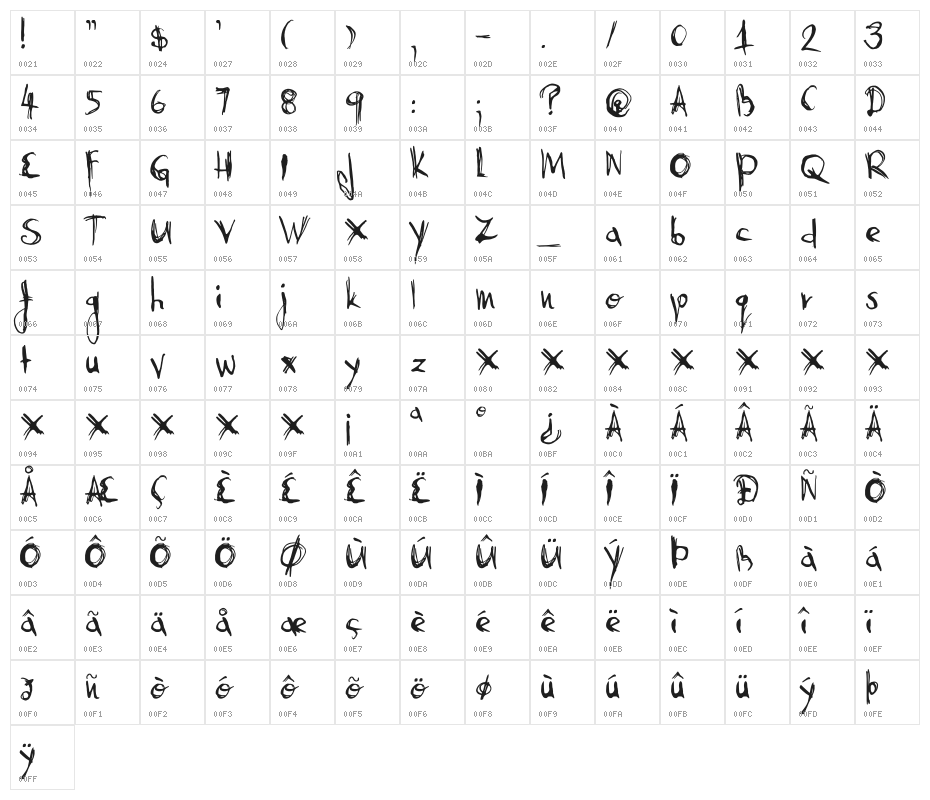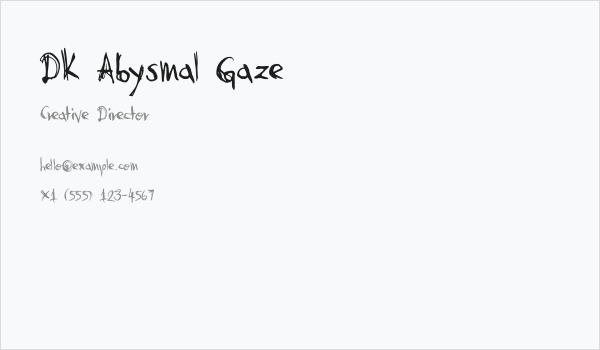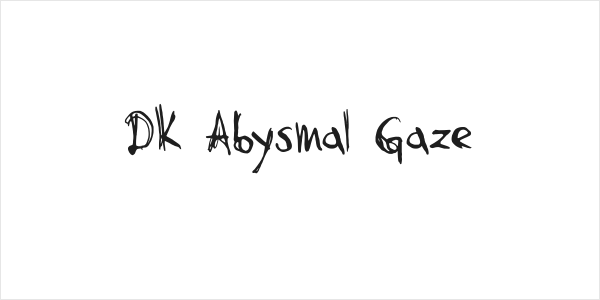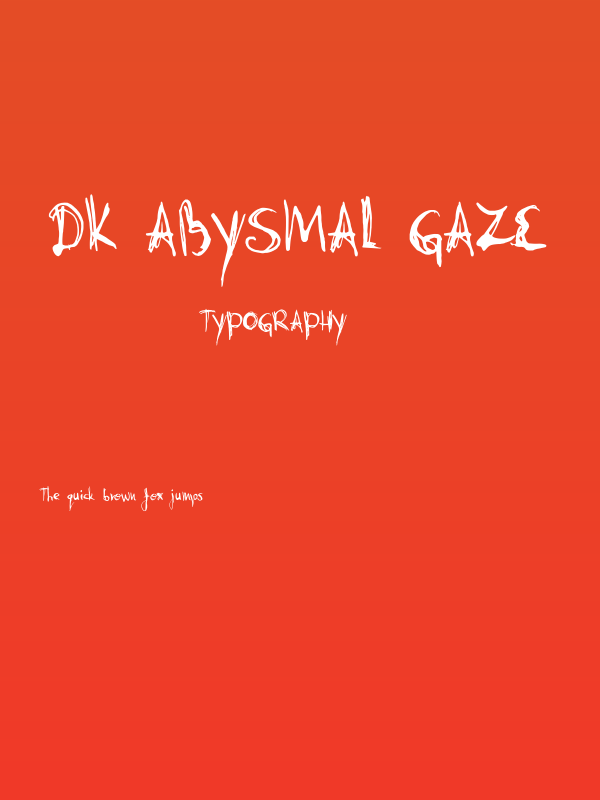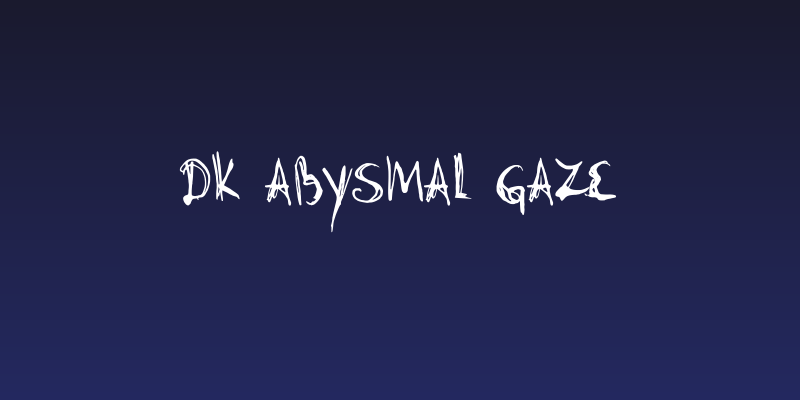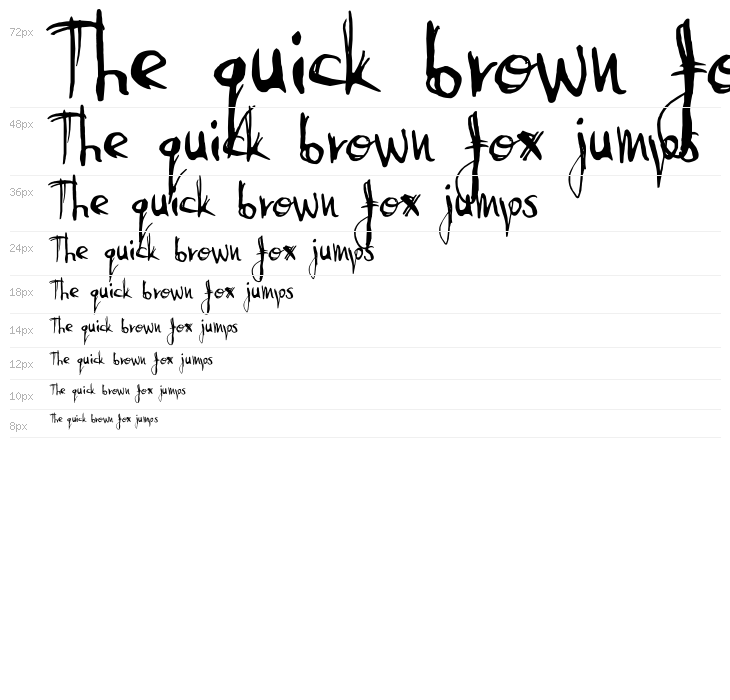
DK Abysmal Gaze Font
DK Abysmal Gaze Description
This font features a highly expressive and chaotic design, characterized by its jagged and irregular strokes. The letters appear as if they are dripping or melting, giving a sense of movement and unpredictability. The uppercase and lowercase letters maintain a consistent style, with exaggerated curves and sharp angles. Numbers and special characters follow the same aesthetic, contributing to a cohesive yet wild appearance. The overall impression is one of intensity and raw energy, making it suitable for projects that require a bold and unconventional look.
| Proposed Projects | Ideal for horror-themed posters, album covers, edgy branding, or any project needing a dramatic and intense visual impact. |